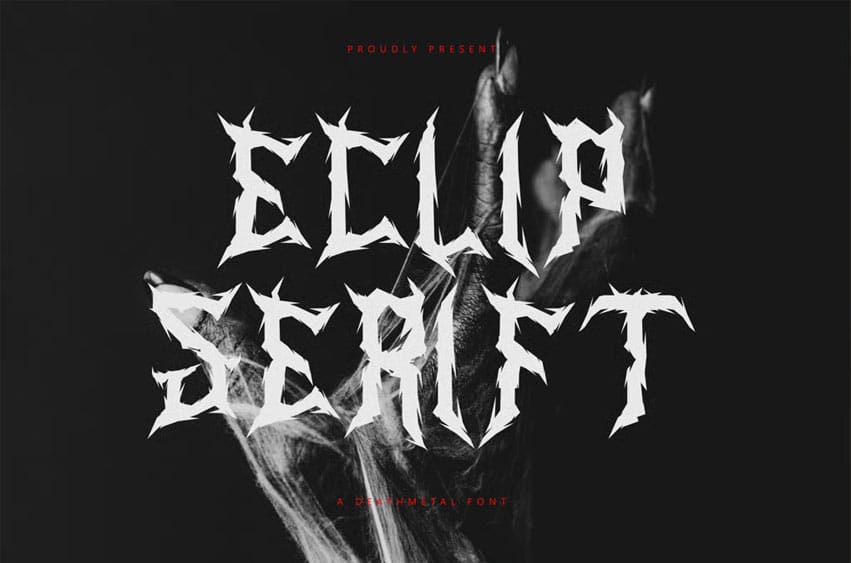
Eclipserift Deathmetal Font is a black metal font that embodies the catastrophic clash between light and darkness, perfectly capturing the eerie and intense energy of the genre.
The name Eclipserift evokes an image of an apocalyptic event — a cosmic rift where the sun is consumed by an eclipse, leaving the world plunged into shadow.